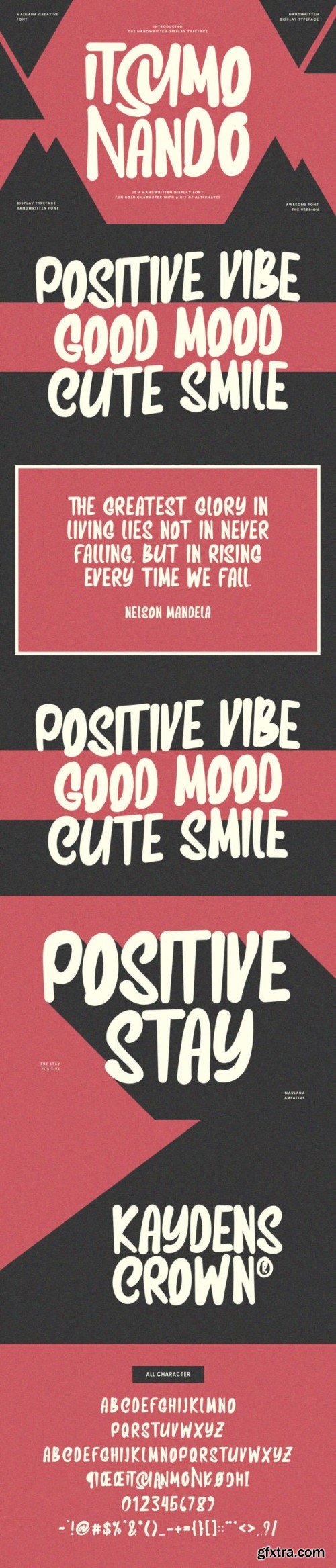
始终奈良font
Itsumo Nando Font
Itsumo Nando is a sweet and friendly handwritten font. Its natural and unique style makes it incredibly fitting to a large pool of designs. The only limit is your imagination!